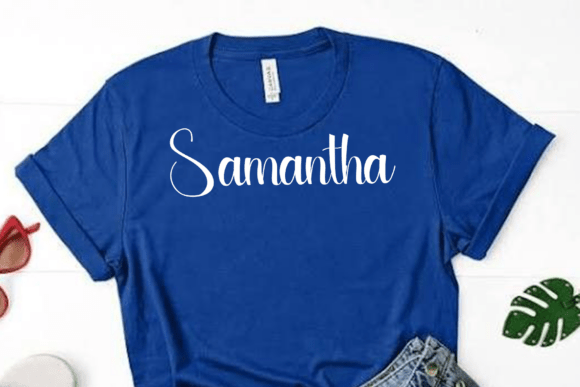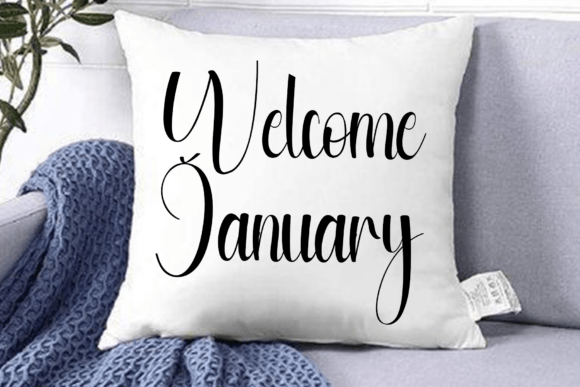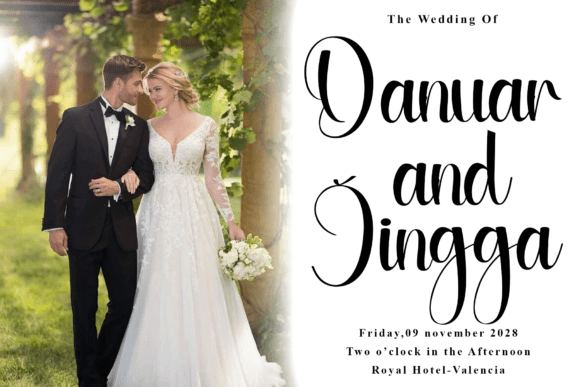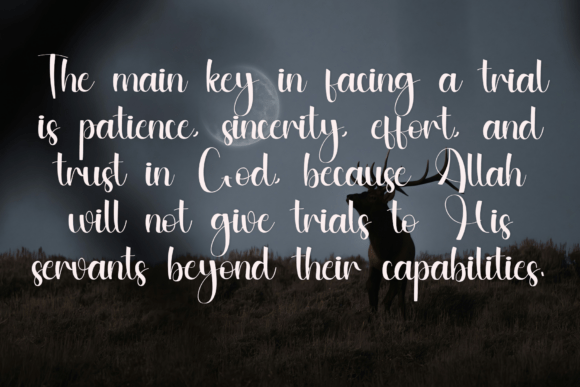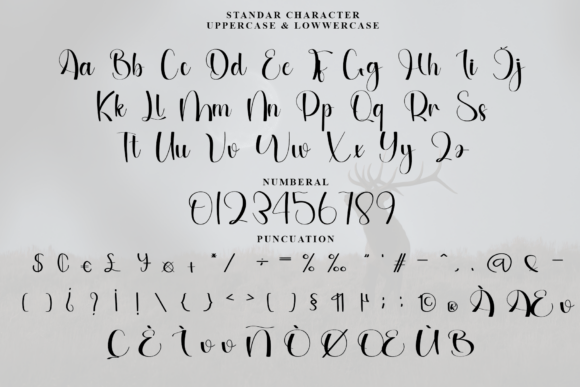
The Perfect Catch for Your Next Design Project
Imagine you’re brainstorming ideas for a new outdoor brand, and suddenly, the perfect concept hits you – a logo that captures the essence of adventure and freedom. But, you need the right tool to bring your vision to life. That’s where the Huntingnight Font comes in – a stylish handwritten font that combines organic charm with a strong typographic presence.
Designed to evoke a sense of adventure and approachability, the Huntingnight Font is the perfect addition to any designer’s toolkit. With its well-balanced proportions and distinctive ‘bouncy’ rhythm, it’s ideal for outdoor lifestyle branding, organic product packaging, and travel-themed graphics. Whether you’re working on a rustic event invitation or a travel brochure, this font is sure to add a touch of sophistication and handmade charm to your design.
Huntingnight Font Key Features
- Font Family: Huntingnight Font is a unique, hand-drawn typeface that offers a wide range of styles and weights.
- Character Set: Includes a comprehensive set of characters, including uppercase and lowercase letters, numbers, punctuation marks, and special characters.
- Unique Characteristics: Features a distinctive, handwritten feel with subtle irregularities and flourishes, adding a touch of personality to any design.
Huntingnight Font Review
First impressions are everything, and the Huntingnight font has certainly caught my eye. ✨ The bold, handwritten feel immediately grabs attention, and the subtle imperfections add a touch of personality to the design.
The font’s versatility shines through in its various styles and weights. From the elegant script to the bold, distressed textures, Huntingnight has a wide range of applications, from fashion and lifestyle brands to art and music labels.
Some of the key features that make Huntingnight stand out include:
- ✨ Unique, handcrafted feel
- ✨ Wide range of styles and weights
- ✨ Perfect for creative, artistic brands
- ⚠️ May not be suitable for corporate or formal brands
- ⚠️ Can be difficult to read in small sizes
Overall, I’m impressed with the Huntingnight font. While it may not be for every brand, its unique style and versatility make it a great choice for creative and artistic ventures.
The Huntingnight font is ideal for use in outdoor and adventure-themed designs, such as:
Posters and flyers for hiking, camping, and outdoor events.
Logos and branding for outdoor gear and apparel companies.
Titles and headings for outdoor-themed websites and blogs.
Q: Does the Huntingnight Font support Unicode characters?
Yes, the Huntingnight Font supports a wide range of Unicode characters, including Latin, Cyrillic, and Greek scripts. This allows for language support in multiple languages and scripts.